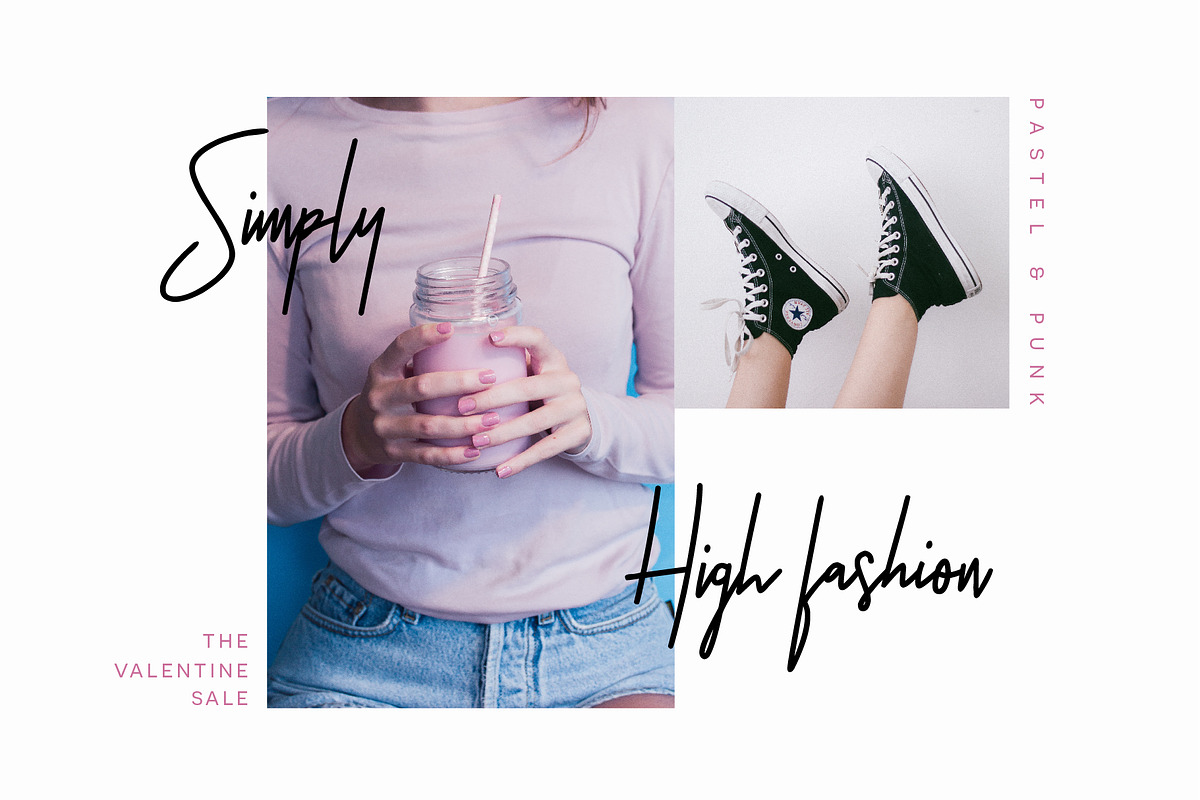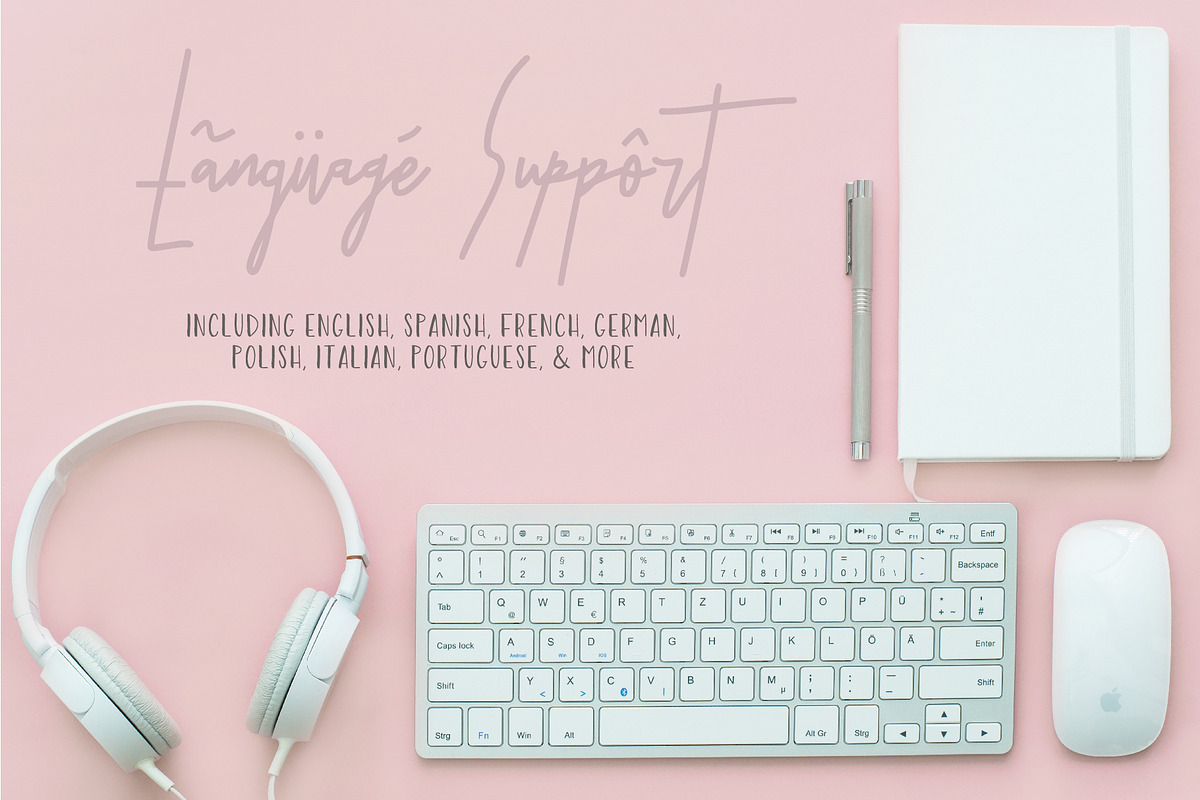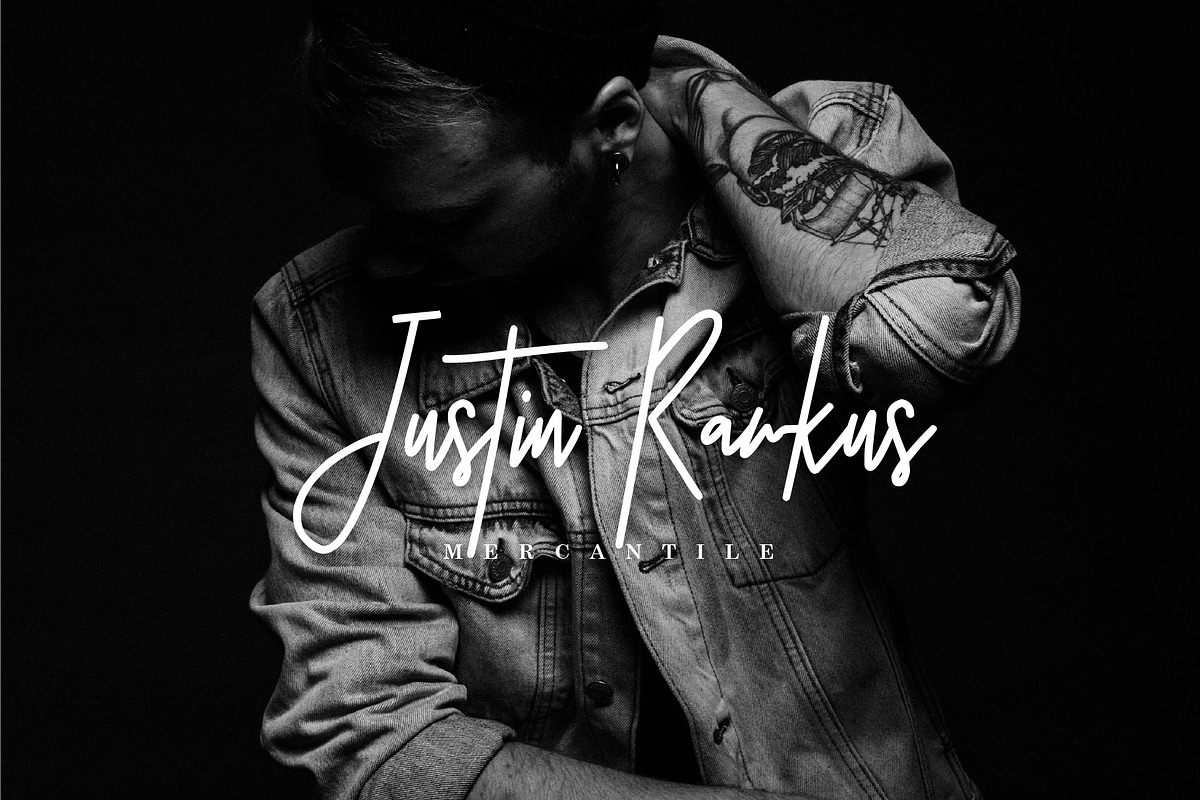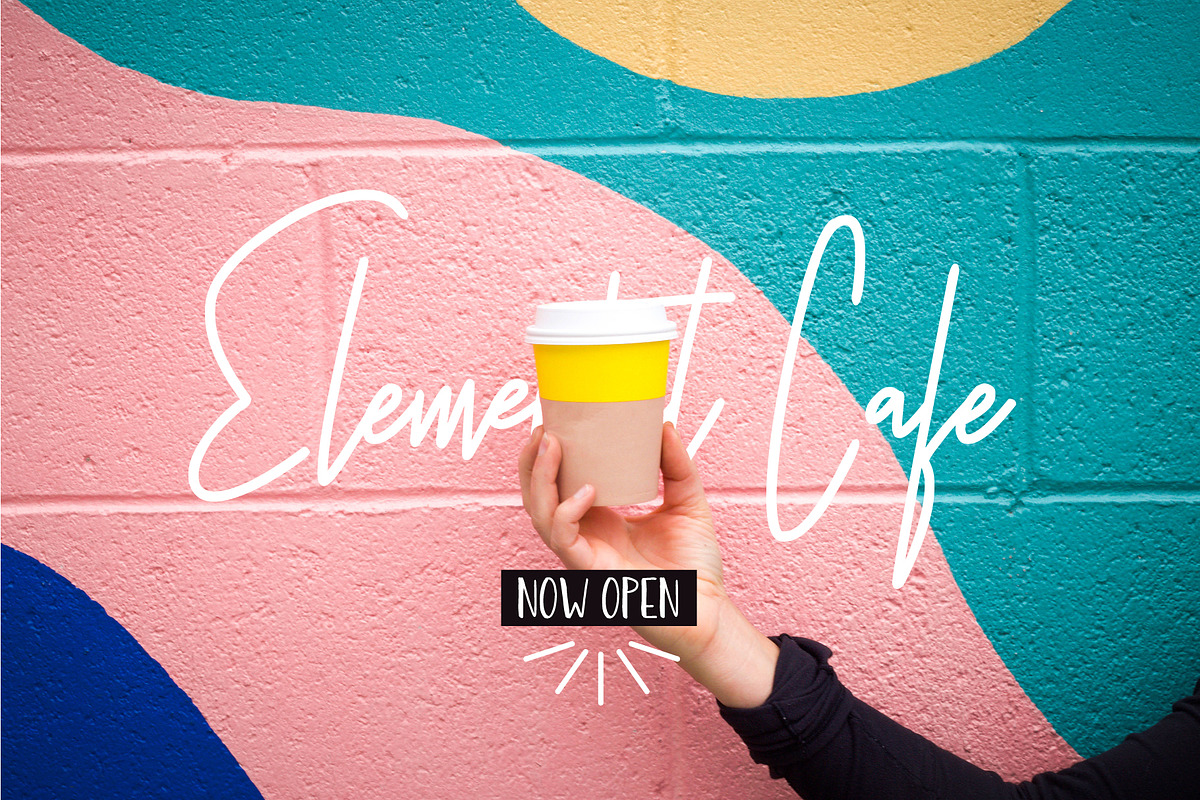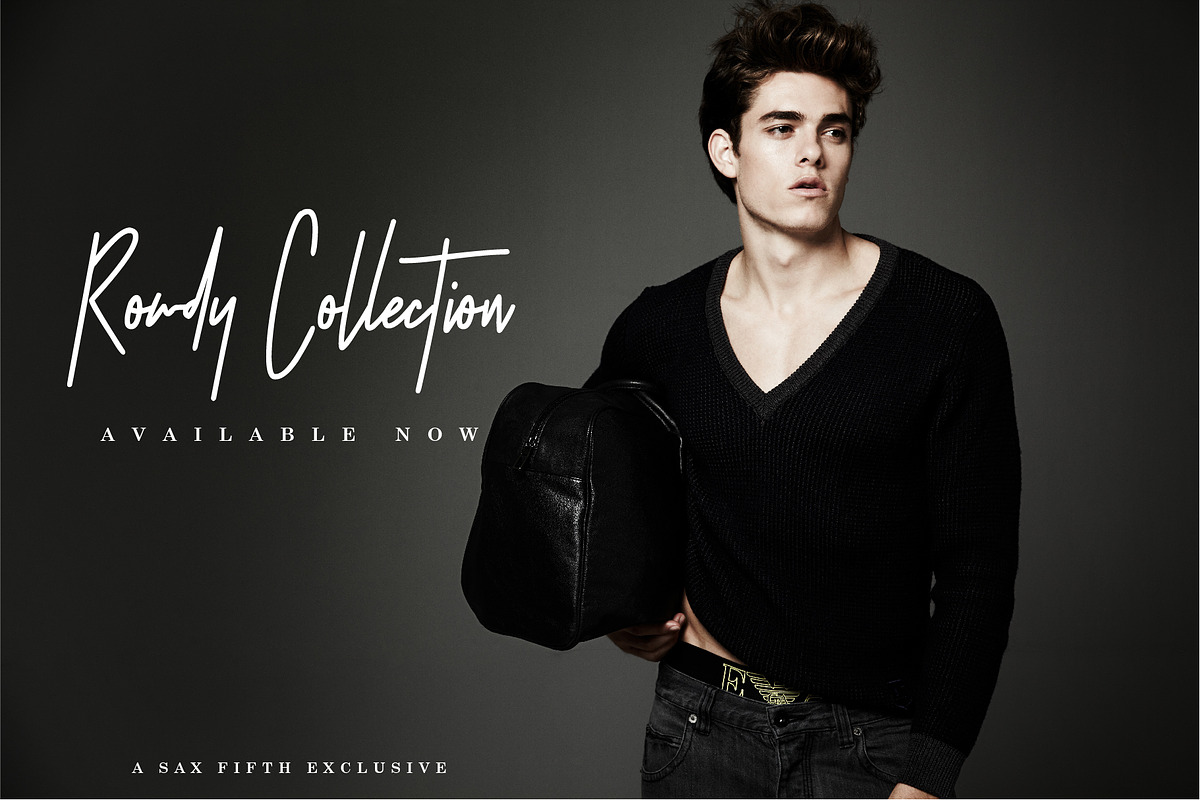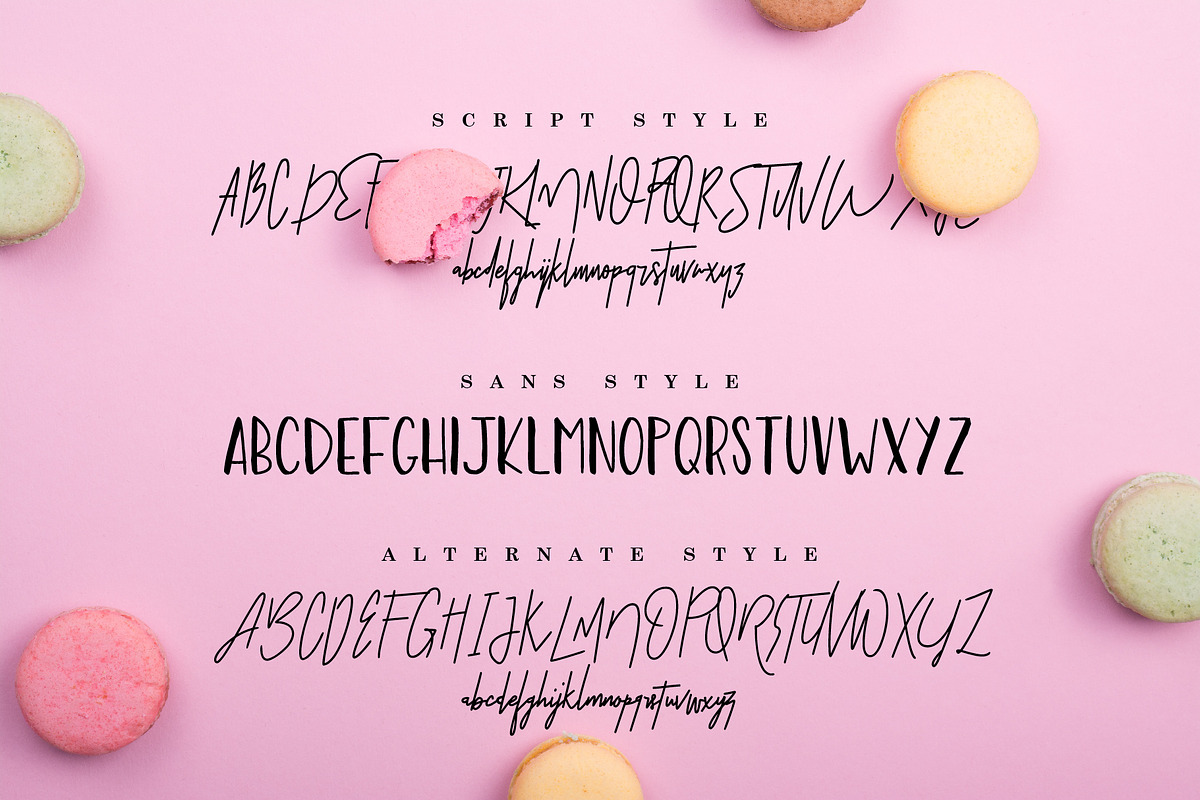
Rawkstone Font Duo
Rawkstone is an eye-popping signature-style font duo perfect for giving your designs character! Throw it on a website header, a business logo, or a party invite and let this typeface do all the work for you. Plus it's filled with tons of opentype feautures such as language support, etc.
Over 100 Bonus Glyphs including International Language Support (English, French, Spanish, German, Polish, Italian, Portuguese, Latin, & More)